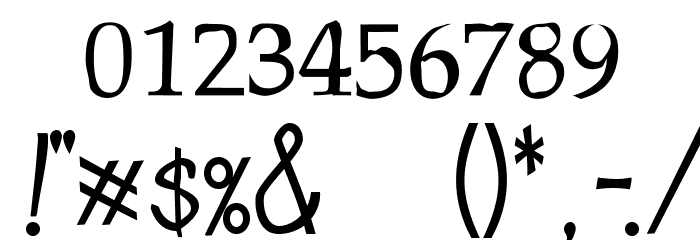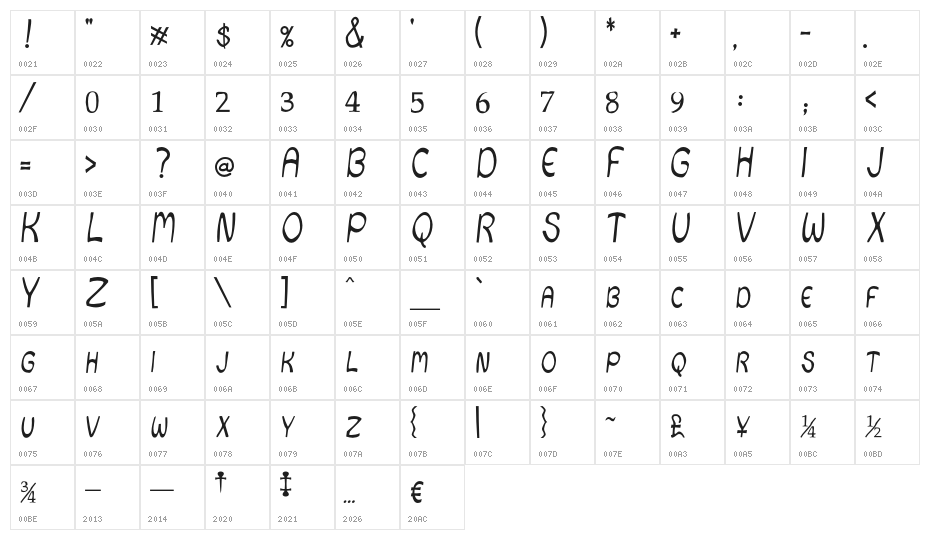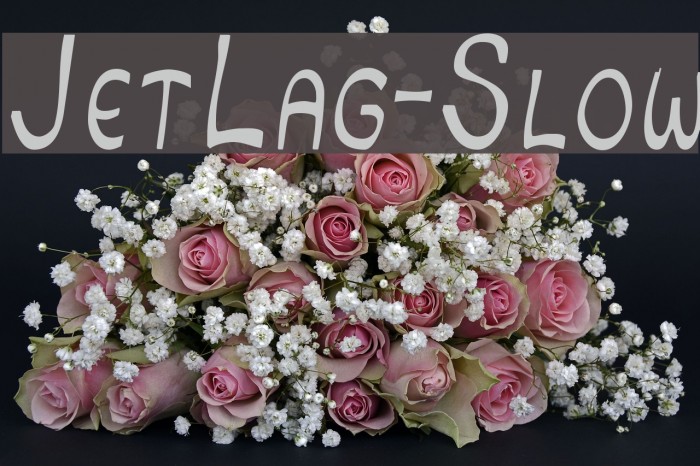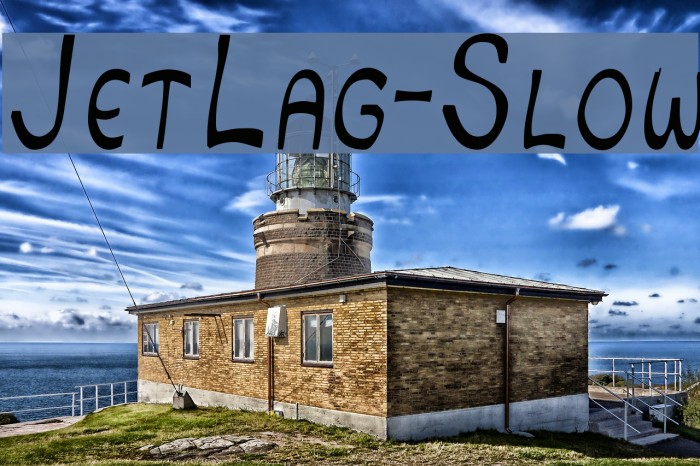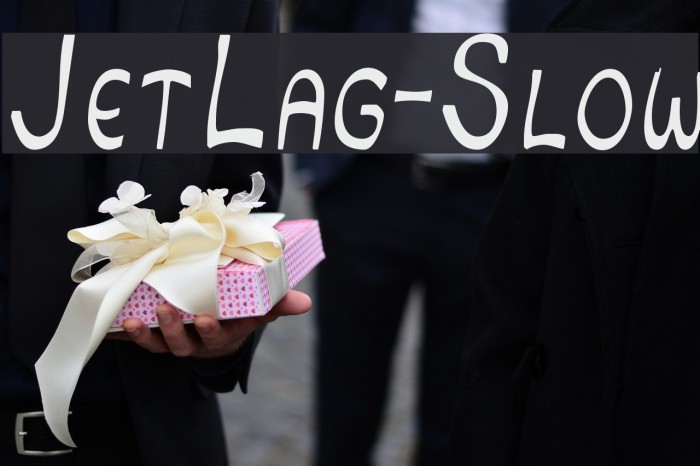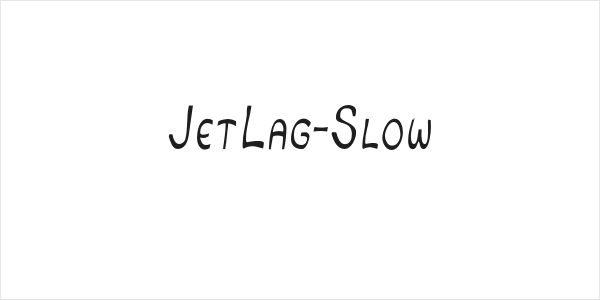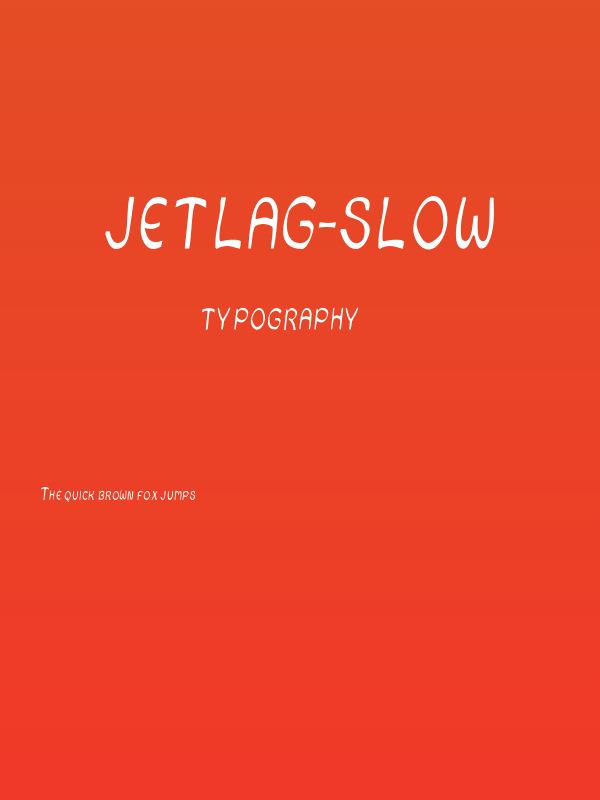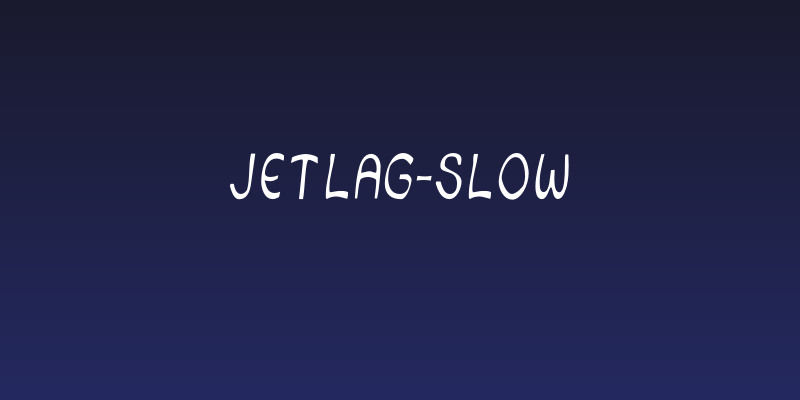
JetLag-Slow Font
JetLag-Slow Description
This font features a playful and dynamic style with a handwritten appearance, characterized by its slightly slanted and fluid letterforms. The strokes are smooth and consistent, giving it a casual yet refined look. The uppercase and lowercase letters maintain a cohesive design, with rounded edges and a slight tilt that adds to its informal charm. The numerals and special characters follow the same aesthetic, ensuring uniformity across all glyphs. This font's unique style makes it suitable for projects that require a personal touch or a creative flair.
| Proposed Projects | Ideal for greeting cards, invitations, personal branding, and creative projects. |